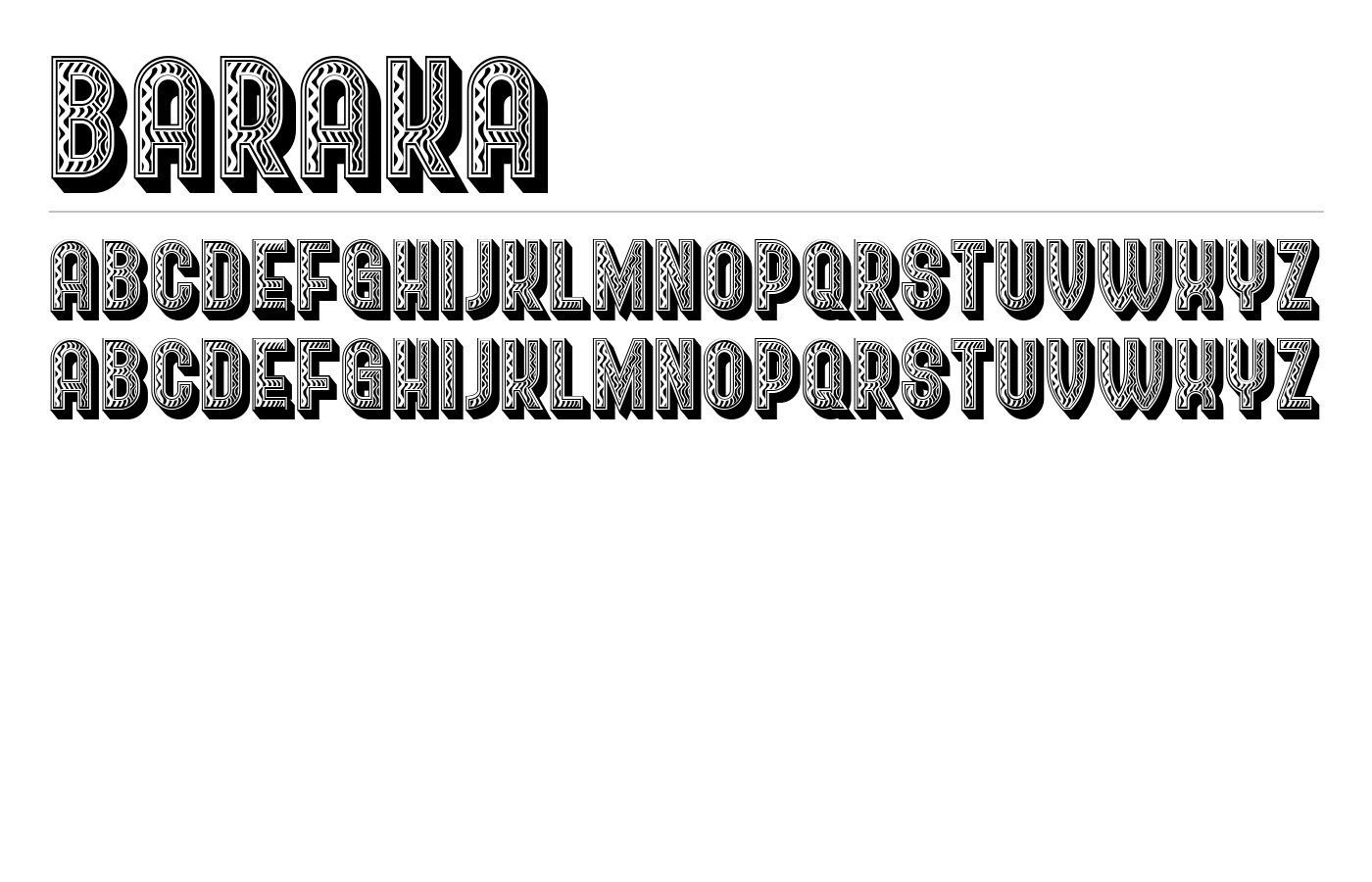
Baraka is a bold, decorative sans serif font with a strong geometric influence, characterized by intricate internal patterns and heavy drop shadows that create a striking 3D effect. Its uppercase-only design, combined with high contrast between decorative fills and solid strokes, gives it a playful, vintage carnival or poster vibe, making it perfect for eye-catching headlines, logos, and creative branding projects that seek to stand out with unique personality.
Baraka Font
About Baraka Font
| Font family | Baraka Font |